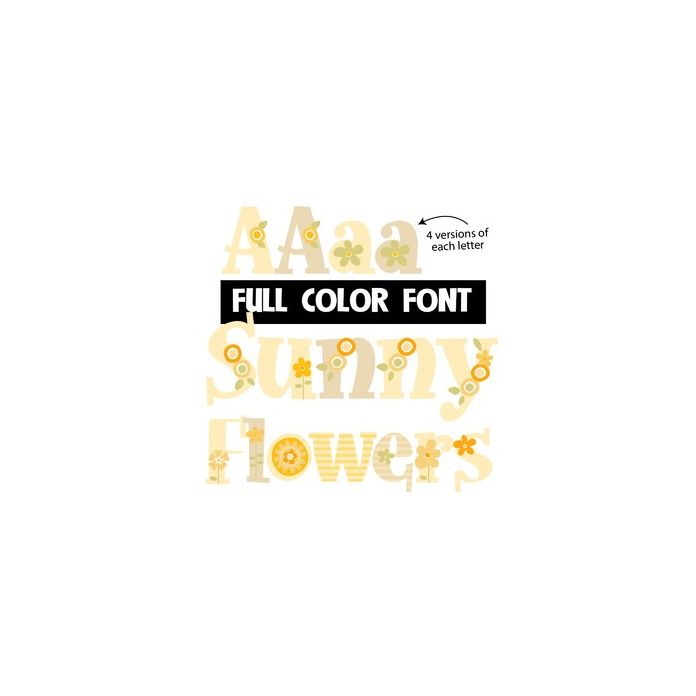
This full-color font features a yellow-color palette of flowers and prints. You can access another version of the letters by using the alt characters in Silhouette's glyph map.